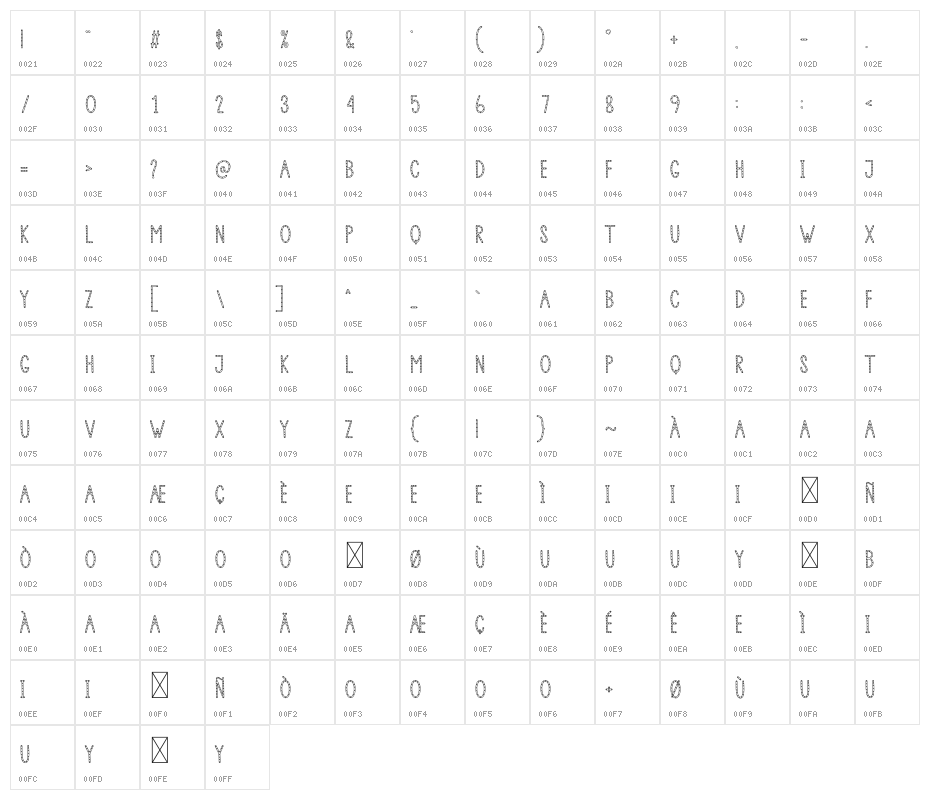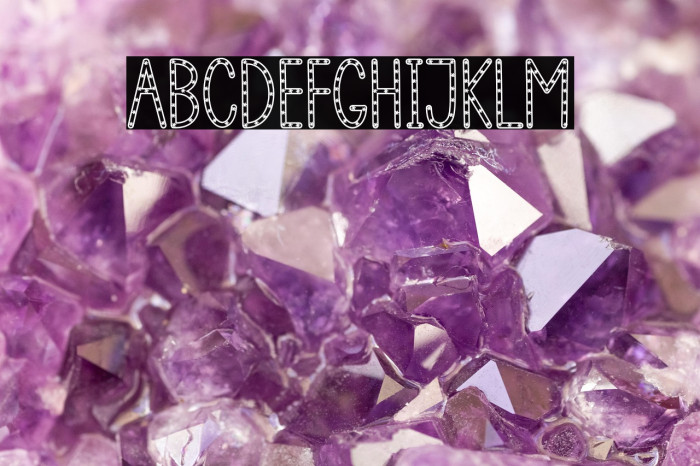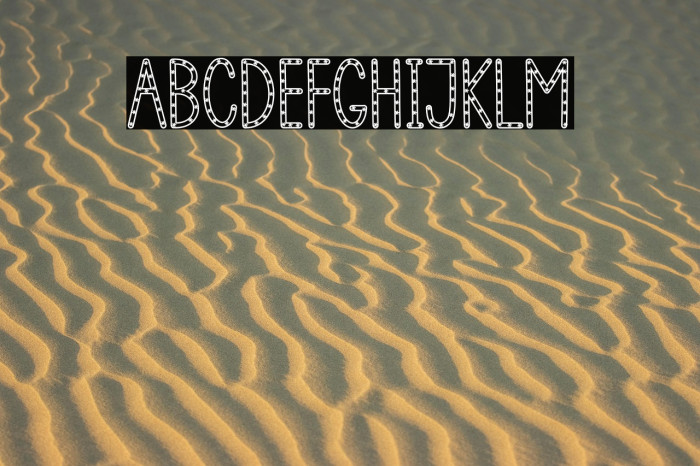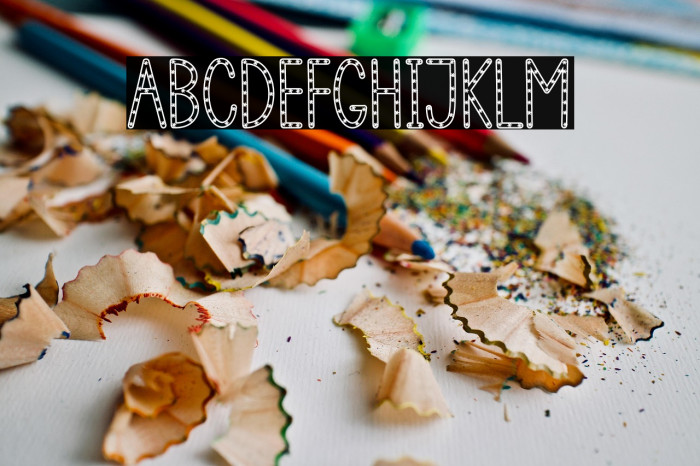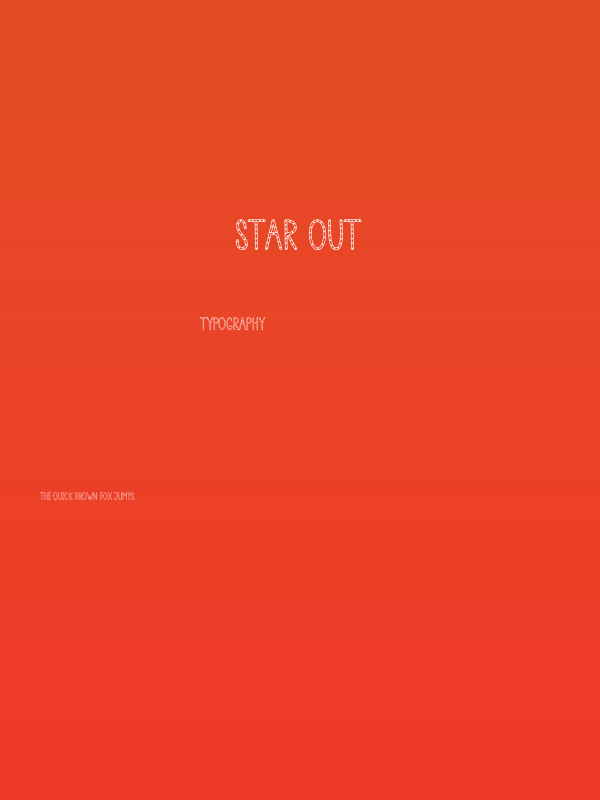
Star Out Font
Star Out Description
This decorative font features a playful and whimsical design with each character outlined and filled with small star shapes. The letters are uppercase and lowercase, with numbers and a variety of special characters. The style is consistent across all characters, providing a cohesive look. The stars within the outlines add a unique texture, making it ideal for creative projects. The font's design is bold and eye-catching, perfect for drawing attention in various applications.
| Proposed Projects | Ideal for children's book covers, party invitations, playful branding, and creative posters. |